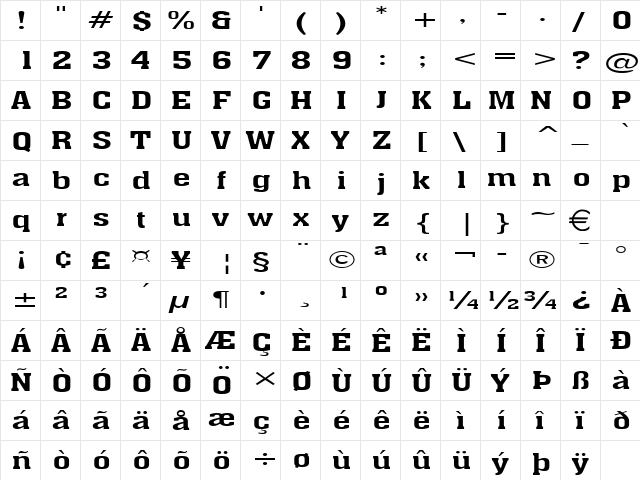
AcheExtended Normal Font Preview
AcheExtended Normal
Design Context for AcheExtended Typeface
AcheExtended takes a measured approach to typography — its balanced proportions and neutral character make it a reliable workhorse for both digital and print work.